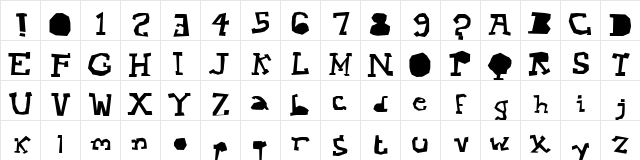
Mopey Normal Free Font
Mopey Normal
Design Context for Mopey
Mopey is a composed and adaptable typeface that performs quietly and consistently across a wide range of design contexts.
Pro Tip: Use Mopey in both headline and body roles to test its range before committing to a single application.